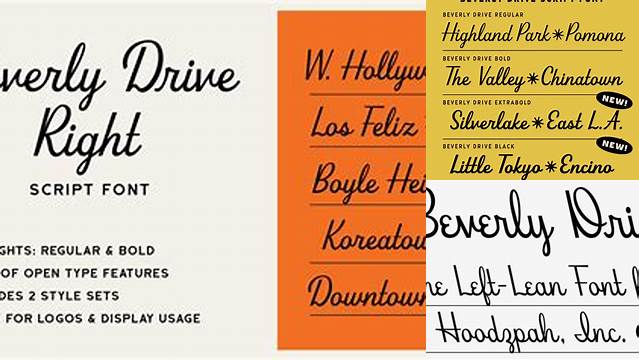
Hey guys! Looking to add a touch of elegance and style to your projects? You've probably heard about the Beverly Drive font, and for good reason! This font is seriously chic and versatile, perfect for everything from branding to invitations. But where do you find a free download? Don't worry, we've got you covered! This guide will walk you through everything you need to know about the Beverly Drive font, where to find it, how to use it, and a whole lot more. Let's dive in!
1. What is Beverly Drive Font?
Okay, so first things first, what exactly is the Beverly Drive font? Simply put, it's a beautiful typeface that exudes sophistication and class. Think handwritten calligraphy meets modern design. It often features elegant swirls, unique letterforms, and a flowy, cursive style. This makes it super popular for designs that need a touch of luxury or a personal feel. Imagine it on wedding invitations, logos for high-end brands, or even just sprucing up your social media graphics. It's a real game-changer! Understanding the characteristics of Beverly Drive font is crucial before you even think about a free download. You need to know if it truly fits your project's aesthetic. The distinctive swashes and elegant curves give it a unique personality that might not be suitable for every application. For instance, while it's perfect for headlines and logos, using it for large blocks of body text can be challenging due to its intricate design. Think of it as the little black dress of fonts—timeless and classy but best used in moderation to make a statement. The visual appeal of the Beverly Drive font lies in its ability to evoke a sense of handwritten elegance, making it feel more personal and bespoke than many other fonts. This is why it’s favored in industries that value sophistication and attention to detail, such as fashion, beauty, and event planning. Knowing these key aspects helps you use the font effectively and appreciate its design nuances, maximizing its impact in your creative endeavors. Remember, a great font, like the Beverly Drive font, isn’t just about the aesthetic; it’s about the message it conveys.
2. Key Features and Characteristics of Beverly Drive Font
Let's get into the nitty-gritty! The Beverly Drive font isn't just pretty; it has specific features that make it stand out. We're talking about its elegant curves, the varying thickness of the strokes, and those gorgeous swashes that extend from certain letters. These swashes add a real touch of flair and personality! The font also usually comes with a range of stylistic alternates, meaning you can swap out certain letterforms for different versions, giving you even more control over the final look. This level of customization is what makes it a favorite among designers. Think of these features as the different ingredients in a recipe – each one contributes to the overall flavor and impact. The varying stroke weights, for example, create a visual rhythm that draws the eye and makes the text feel dynamic. The stylistic alternates are like adding different spices; they allow you to fine-tune the look and feel of the font to perfectly match your brand or project. When you're considering a free download of the Beverly Drive font, make sure to check if the version includes these essential features. A complete set of glyphs, including uppercase and lowercase letters, numbers, punctuation, and those all-important alternates, is what will give you the most flexibility and allow you to truly unleash the font's potential. This is especially critical if you plan to use the font for professional projects where consistency and attention to detail are paramount. Remember, the devil is in the details, and the Beverly Drive font is a masterclass in detail-oriented design. It's these features that elevate it from a simple typeface to a statement of style and sophistication.
6. Beverly Drive Font Alternatives: Similar Fonts to Consider
Okay, so maybe you can't find a free download of the Beverly Drive font that fits your needs, or maybe you just want to explore some similar options. That's totally cool! There are tons of other beautiful script and calligraphy fonts out there that capture a similar vibe. Fonts like Aphrodite Pro, Samantha Script, and Madina Script are all great alternatives. They offer that same elegant, handwritten feel, and many of them come with a wide range of stylistic alternates and ligatures, giving you plenty of creative control. Think of exploring font alternatives like trying different flavors of ice cream – you might discover a new favorite! Just because you can't find the exact Beverly Drive font for a free download doesn't mean you have to compromise on your design vision. The world of typography is vast and diverse, with countless fonts waiting to be discovered. When you're searching for alternatives, consider the specific characteristics of the Beverly Drive font that appeal to you. Is it the elegant swashes? The flowing curves? The handwritten feel? Use these qualities as your guide to finding fonts that offer a similar aesthetic. Sites like FontPair and Typewolf are excellent resources for finding font combinations and alternatives. They showcase different fonts used in real-world designs, which can give you inspiration and help you visualize how a font will look in your project. Remember, the perfect font is the one that best communicates your message and complements your brand identity. It might not be the most popular font or the most expensive one, but it will be the one that resonates with your audience and helps you achieve your design goals.
7. Using Beverly Drive Font in Branding and Logo Design
The Beverly Drive font is a fantastic choice for branding and logo design, especially if you're going for a sophisticated, feminine, or high-end look. Its elegant curves and swashes add a touch of luxury and personality, making your brand feel more approachable and memorable. Think of brands in the beauty, fashion, or wedding industries – this font would be right at home! When using it for logos, make sure it's legible, even at smaller sizes. You might need to adjust the letter spacing or size of the swashes to ensure it looks perfect. Think of your logo as the face of your brand – it's the first thing people see, and it needs to make a strong impression. The Beverly Drive font can be a powerful tool for creating a logo that exudes elegance and sophistication, but it's crucial to use it strategically. Consider the overall tone and message you want to convey. Is your brand playful and whimsical, or serious and professional? The font should align with your brand's personality. When incorporating the Beverly Drive font into your logo, think about how it interacts with other design elements, such as colors, images, and spacing. A well-designed logo is a harmonious blend of all these elements, creating a cohesive and memorable visual identity. Experiment with different variations of the font, such as bold or italic versions, to see which best suits your logo. You can also try pairing it with a simpler sans-serif font for a balanced and modern look. Remember, a logo is more than just a pretty design – it's a representation of your brand's values and identity. Using the Beverly Drive font effectively can help you create a logo that not only looks beautiful but also communicates your brand's message clearly and powerfully.
8. Designing Wedding Invitations with Beverly Drive Font
Speaking of weddings, the Beverly Drive font is perfect for wedding invitations! Its elegant, handwritten style adds a romantic and personal touch, making your invitations feel extra special. Imagine the beautiful calligraphy gracing the names of the happy couple, the date, and the venue – it's just chef's kiss! When designing wedding invitations, legibility is key. You want your guests to be able to easily read the details, so make sure the font size is large enough and the spacing is just right. Consider pairing the Beverly Drive font with a simpler serif or sans-serif font for the body text to create a balanced and visually appealing design. Think of your wedding invitations as a sneak peek into your special day – they set the tone and build anticipation for the celebration to come. Using the Beverly Drive font on your invitations can instantly elevate their elegance and create a sense of timeless romance. When designing your invitations, consider the overall theme and style of your wedding. Is it a formal black-tie affair, or a more relaxed and bohemian gathering? The font should complement the overall aesthetic. Play with different layouts and design elements to create an invitation that reflects your personal style. You can incorporate floral illustrations, elegant borders, or even a custom monogram to add a personal touch. Remember, your wedding invitations are not just pieces of paper – they're keepsakes that your guests will cherish for years to come. Using the Beverly Drive font can help you create invitations that are not only beautiful but also meaningful and memorable.
9. Using Beverly Drive Font in Social Media Graphics
Want to make your social media posts stand out? The Beverly Drive font can help! Its eye-catching style is perfect for creating graphics that grab attention and convey a sense of sophistication. Use it for headlines, quotes, or even to overlay text on photos. Just remember to keep it legible, especially on smaller screens. Consider using it sparingly – a little can go a long way! Think of your social media feed as a digital storefront – you want to create a visually appealing and engaging experience for your followers. Using the Beverly Drive font in your graphics can help you add a touch of elegance and personality to your brand's online presence. When creating social media graphics, consider the platform you're using and the audience you're trying to reach. Different platforms have different design standards and user expectations. The Beverly Drive font might be perfect for Instagram, but it might not be the best choice for a more corporate platform like LinkedIn. Experiment with different color palettes and design elements to create graphics that are visually appealing and consistent with your brand's identity. You can use the font to highlight key messages, promote special offers, or simply add a touch of flair to your posts. Remember, social media is a visual medium, and your graphics are a crucial part of your brand's communication strategy. Using the Beverly Drive font effectively can help you create a strong visual presence and engage your audience in a meaningful way.
10. Designing Elegant Business Cards with Beverly Drive Font
Business cards might seem old-school, but they're still a powerful networking tool! Using the Beverly Drive font on your business cards can instantly elevate their design and make a lasting impression. Its elegant style conveys professionalism and sophistication, making you stand out from the crowd. Just make sure the font size is legible and the contact information is clear and easy to read. Think of your business card as a miniature billboard for your brand – it's a tangible representation of your company and your personal brand. Using the Beverly Drive font on your business card can help you communicate a sense of elegance and attention to detail. When designing your business card, consider the overall layout and design. Keep it clean and uncluttered, with a clear hierarchy of information. The Beverly Drive font can be used for your name, your title, or your company name, but avoid using it for all the text on the card. Pair it with a simpler font for your contact information to ensure readability. Experiment with different paper stocks and finishes to enhance the overall look and feel of your business card. A high-quality paper stock and a professional printing finish can make a big difference in the impression your card makes. Remember, your business card is often the first impression you make on a potential client or partner. Using the Beverly Drive font effectively can help you create a card that is not only visually appealing but also memorable and impactful.
11. Creating Stunning Invitations for Special Events
12. Crafting Personalized Greeting Cards with Beverly Drive
13. Enhancing Your Website Design with Beverly Drive Font
14. Beverly Drive Font and Readability: Best Practices
15. Pairing Beverly Drive Font with Other Fonts
16. The Psychology Behind Using Script Fonts Like Beverly Drive
17. The History and Evolution of Script Fonts
18. Beverly Drive Font for Print vs. Digital Media
19. Common Mistakes to Avoid When Using Beverly Drive Font
20. Beverly Drive Font and Cultural Design Preferences
21. Alternatives to Free Font Downloads: Subscription Services
22. Protecting Your Designs: Font Licensing and Copyright
24. Mastering Kerning and Leading with Beverly Drive Font
25. Advanced Typography Techniques Using Beverly Drive
26. Using Beverly Drive Font for Book Covers and Titles
27. Creating Eye-Catching Posters with Beverly Drive